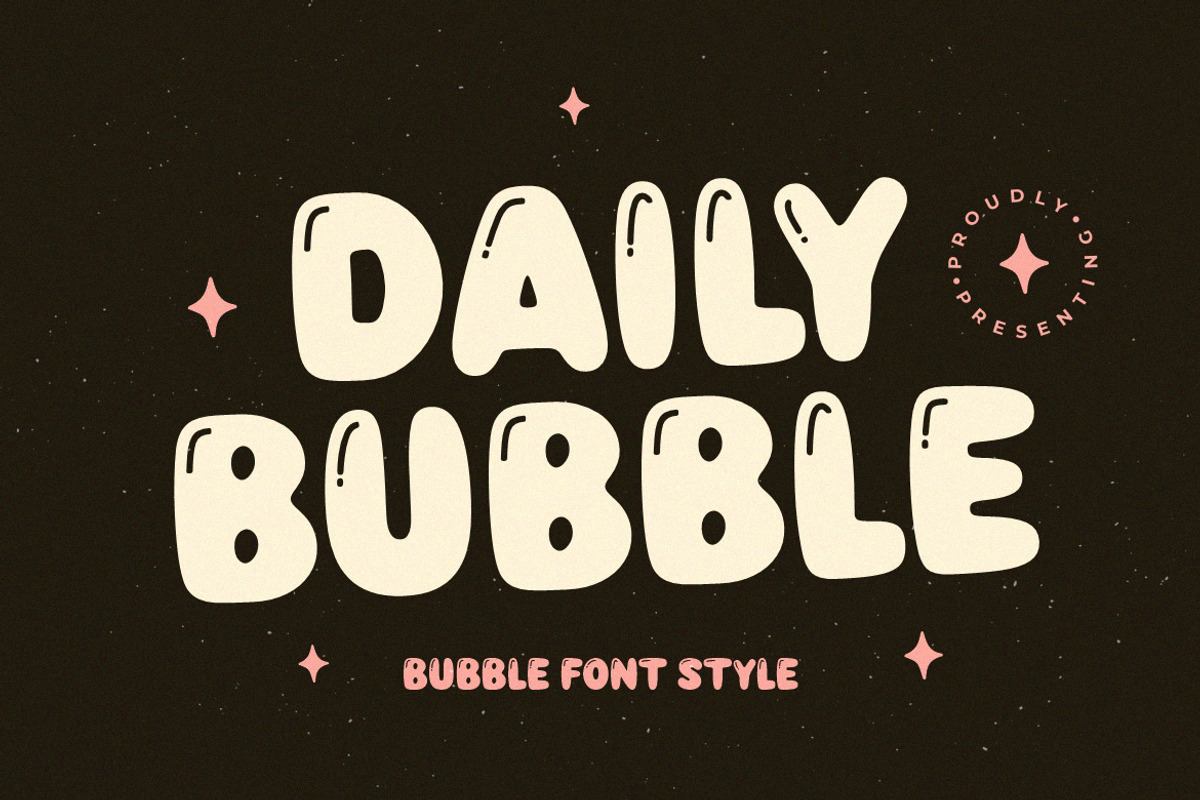
Daily Bubble – Bubble Typeface Free Download is a fun, bouncy, and playful font designed to bring joy and energy to your creative projects. Please note, you are required to purchase this font for commercial use. It is available for free download for testing and personal projects only.
With its soft, rounded shapes and cartoon-like character, Daily Bubble is perfect for children’s books, birthday invitations, stickers, toys, packaging, social media posts, and anything that needs a pop of bubbly personality. It’s cheerful, readable, and full of charm—ideal for designs that don’t take themselves too seriously.